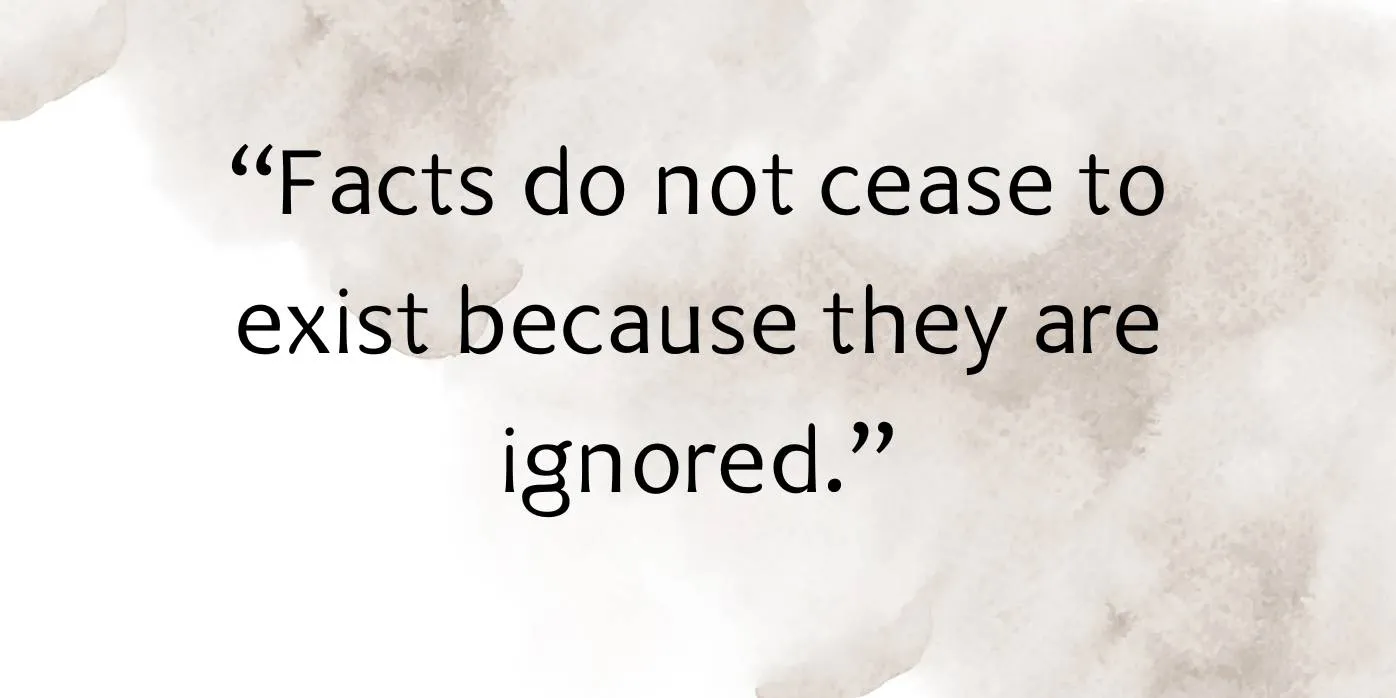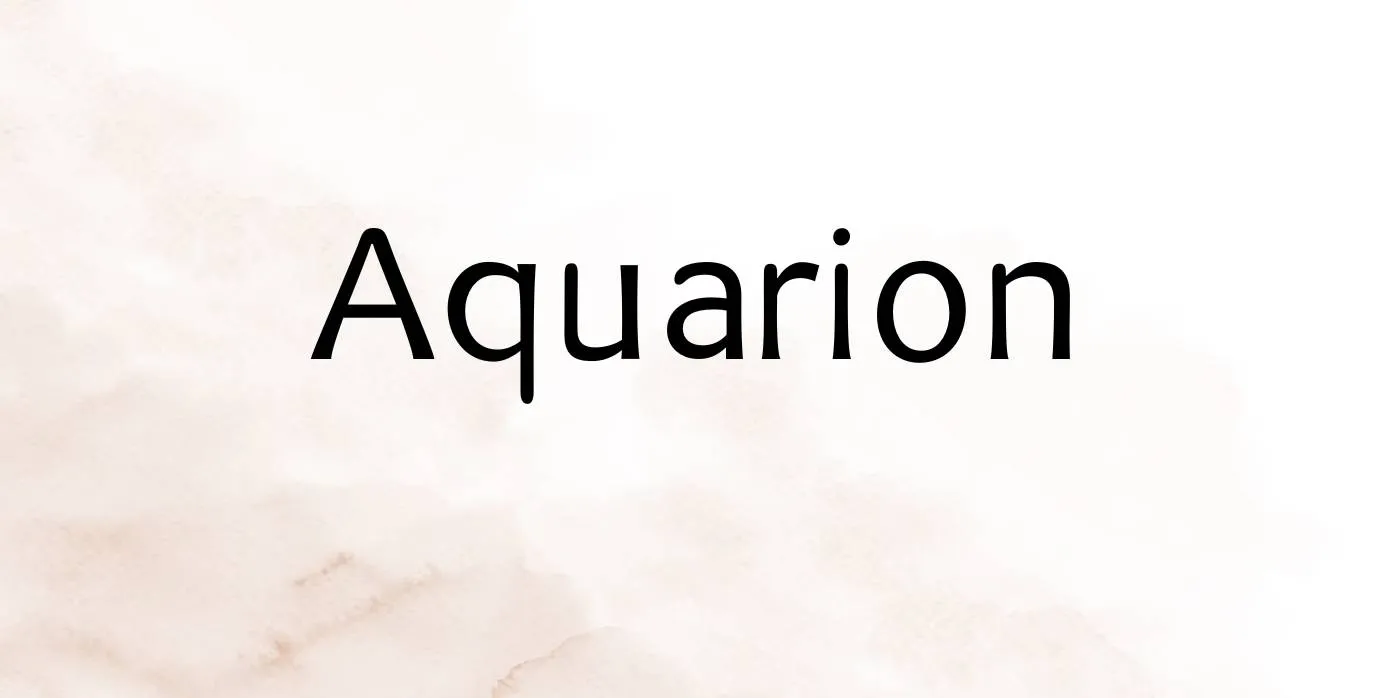
Aquarion Font
Aquarion Font is a sans serif typeface. Jean Catalano is the designer for this typeface. This typeface comes in a zip file that is available in Truetype font and Opentype font formats. The characters for this typeface are bold, attention-catching, highly readable, and stunning.